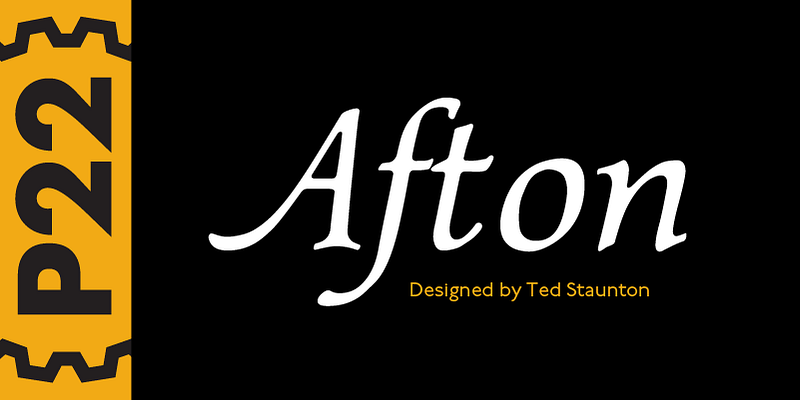
P22 Afton Font Free Download is a refined and versatile serif typeface, combining elegance and readability. Its clean lines and subtle curves make it perfect for professional design projects, such as editorial layouts, branding, websites, and invitations, that require a classic yet modern feel.
P22 Afton Font works beautifully for both large headlines and smaller body text, offering excellent legibility and timeless style. It integrates seamlessly with design tools like Adobe Illustrator, Photoshop, Figma, and Canva, making it ideal for both digital and print media.